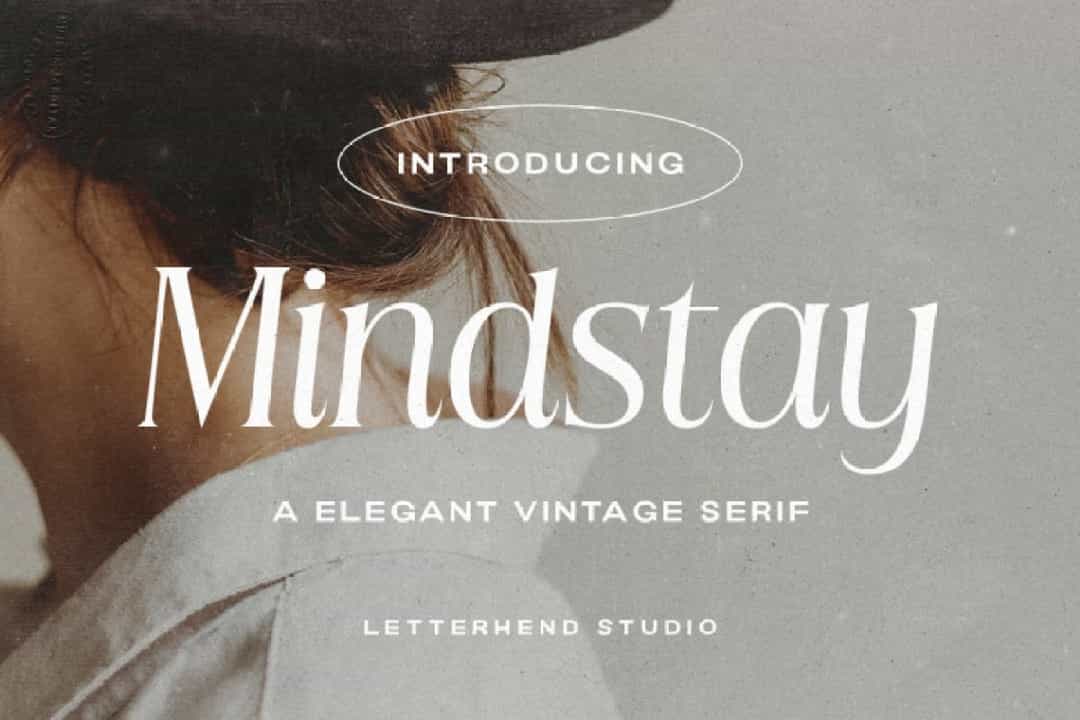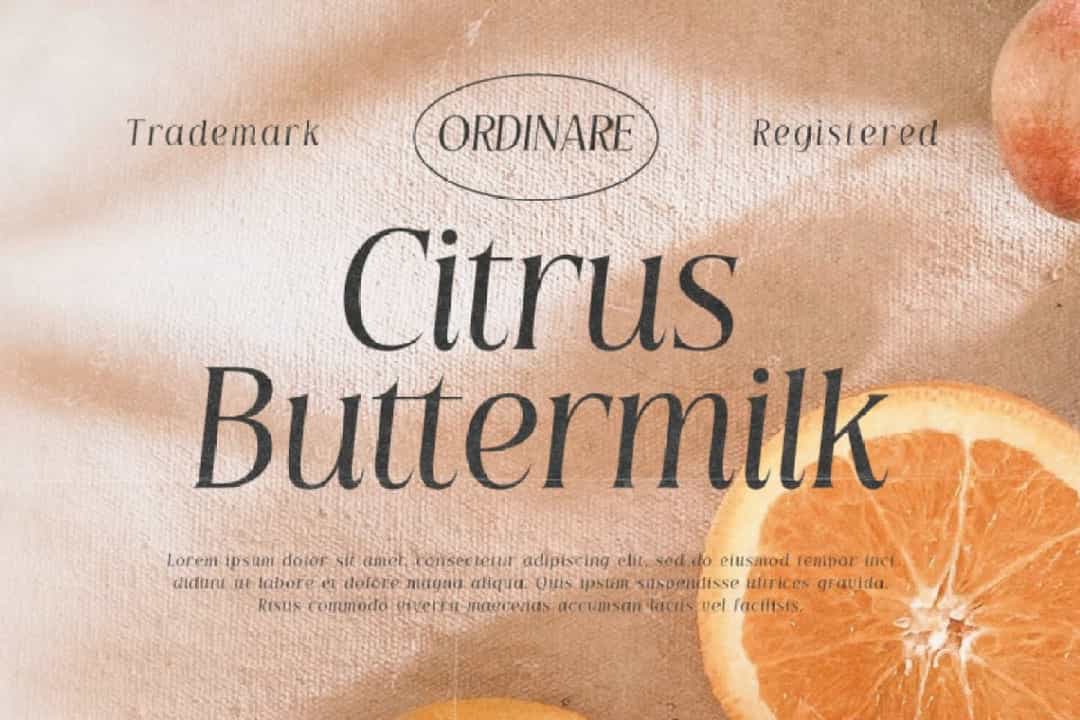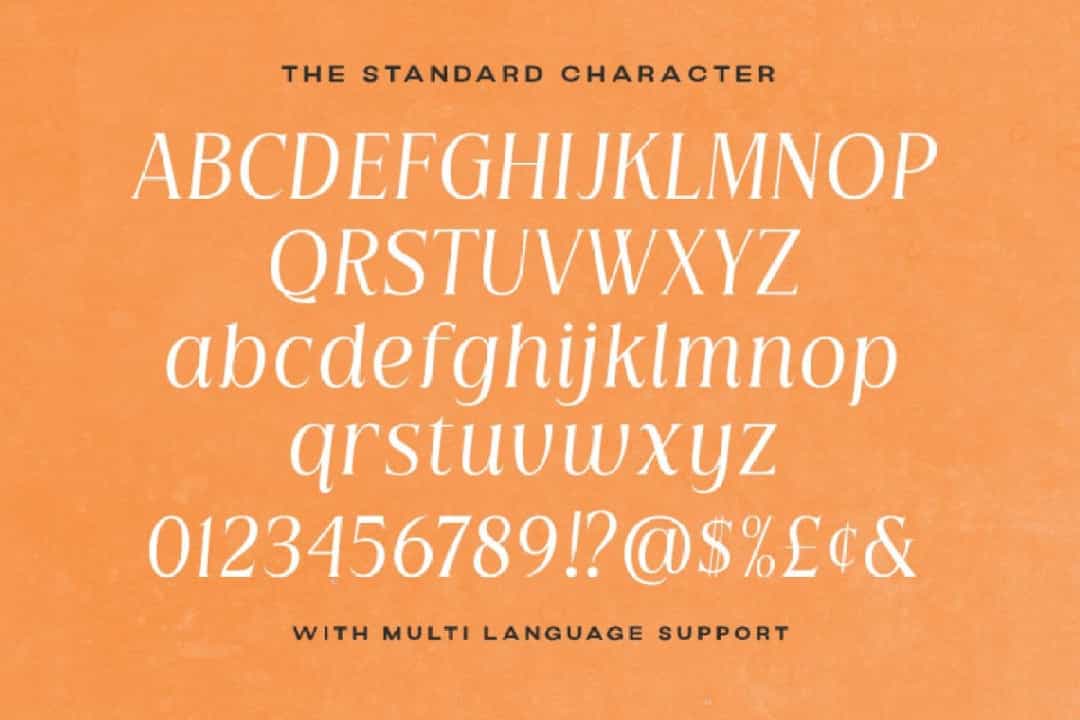
Mindstay is a classic, elegant serif typeface that exudes timeless beauty and grace. The clean lines and attention to detail exemplified in traditional typography makes Mindstay an attractive serif font ideal for creating retro logos, posters, or sophisticated compositions with typography as its base material.